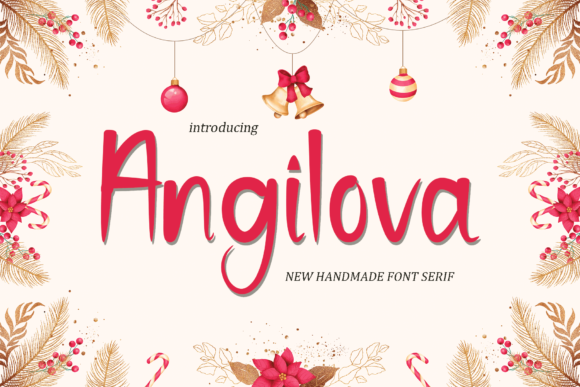
The Angilova Font: A Romantic and Joyful Handwritten Delight
I’ll never forget the time I was working on a wedding invitation project, and my client asked me to create a custom design that would reflect their personalities. I spent hours browsing through font libraries, but nothing seemed quite right. That’s when I stumbled upon the Angilova font, and it instantly captured the romantic and joyful vibe I was looking for.
Angilova is a beautiful, handwritten font that exudes warmth and personality. Its elegant, cursive strokes and playful flair make it perfect for a variety of designs, from wedding invitations and thank you cards to logos and greeting cards.
- ✨ The font’s romantic and joyful feel makes it perfect for wedding and love-themed designs.
- ✅ The handwritten style gives it a personal and unique touch.
- 💕 The font’s versatility allows it to be used for a wide range of creative projects.
- 🎉 The OpenType features and glyphs offer a lot of creative possibilities.
While Angilova is an amazing font, there are a few things to keep in mind:
- ⚠️ Some of the more intricate swashes and flourishes can be a bit finicky to work with.
- 🤔 The font may not be the best choice for very formal or corporate designs.
The Story Behind Angilova
Angilova was designed with love and care by a talented font designer who wanted to create a font that would capture the romance and joy of handwritten writing. The designer’s inspiration came from traditional calligraphy and hand-lettering, with a modern twist.
Q: What type of designs is Angilova best suited for?
A: Angilova is perfect for wedding invitations, thank you cards, greeting cards, logos, and any other design that requires a personal and romantic touch.
Q: Is Angilova available in different languages?
A: Angilova currently supports English and other languages that use the Latin alphabet.
Q: Can I use Angilova with other fonts?
A: Yes, Angilova can be paired with other fonts to create a unique and interesting design.